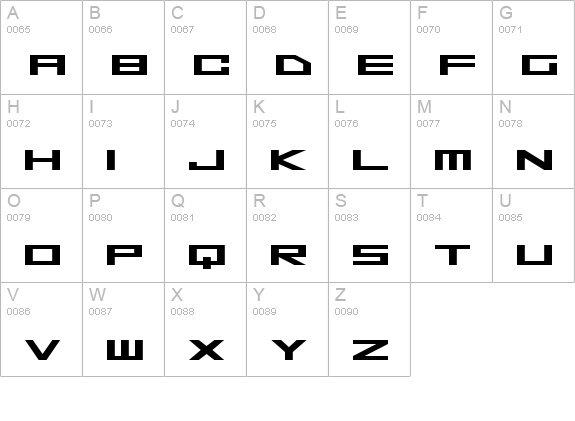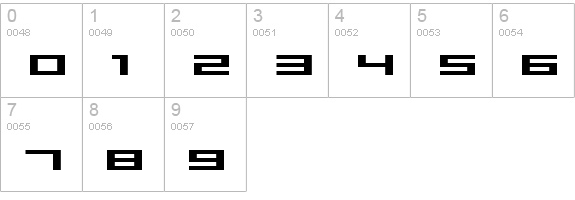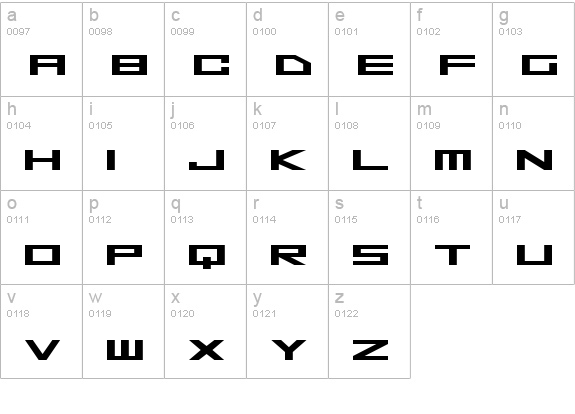
Space Superstars is a free for personal use font in the Modern > Techno category, designed by Darrell Flood. It has been downloaded 94 times and is available for Windows, Mac and Linux.
Space Superstars font is a dynamic and futuristic typeface that embodies the spirit of outer space exploration and cosmic adventures. With its sleek lines and futuristic design, this font is perfect for creating eye-catching titles, posters, and branding materials for projects related to science fiction, technology, and space travel.